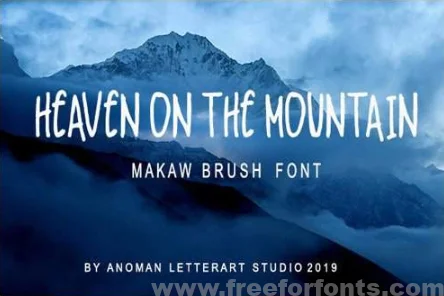
Makaw Font
Makaw Font is exciting because it captures the vibrant energy and exotic beauty of tropical rainforests through bold, colorful-inspired letterforms that evoke the magnificent plumage and wild spirit of macaw parrots with stunning visual impact. This brilliantly designed typeface combines tropical wildlife aesthetics with contemporary functionality, making it perfect for brands that want to communicate natural vibrancy, exotic adventure, and connection to the spectacular beauty of rainforest ecosystems.
The Makaw Font family includes vibrant weights with tropical bird-inspired character styling, featuring colorful design elements and exotic decorative variations. The font showcases rainforest design details, jungle-optimized proportions, and wildlife character characteristics that create a comprehensive typographic system for nature-focused and adventure-oriented brand applications.
The tropical sophistication of Makaw Font makes it an invaluable tool for eco-tourism companies, wildlife conservation groups, and nature-focused organizations that need typography capable of communicating rainforest beauty and exotic wildlife appeal. The font's colorful character helps establish connections with audiences seeking authentic natural experiences and wildlife adventures that celebrate the magnificent biodiversity of tropical ecosystems.
Eco-tourism operators, wildlife sanctuaries, and nature conservation organizations consistently choose Makaw Font for its ability to convey tropical vibrancy and rainforest sophistication through typography. The font excels in applications where establishing environmental credibility and exotic appeal are essential to brand positioning, making it particularly effective for wildlife tourism, conservation efforts, and nature education targeting adventure-seeking and environmentally conscious consumers.
This font's comprehensive character set includes tropical-inspired letterforms, vibrant numerals, exotic punctuation marks, and wildlife symbols that support authentic rainforest typography composition. The consistent colorful styling maintains the tropical wildlife theme throughout all characters while ensuring professional readability across all nature and wildlife design projects requiring Makaw Font Free Download functionality.